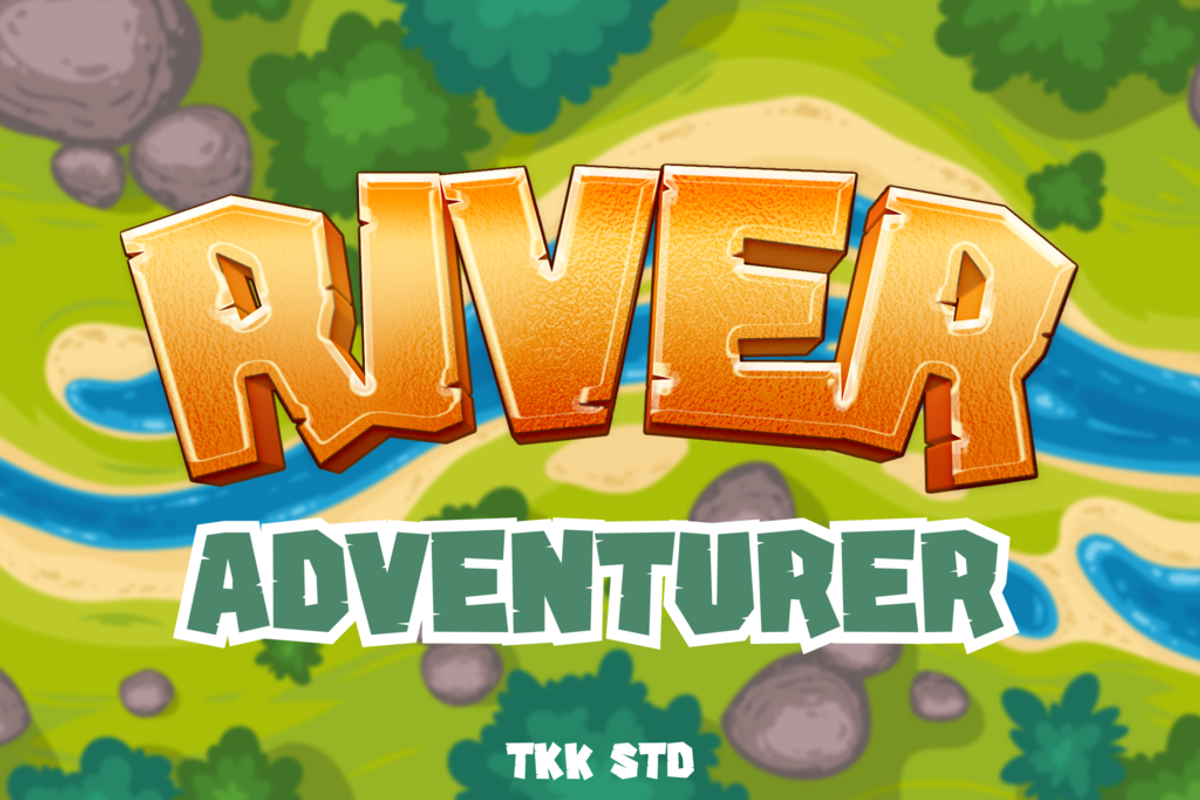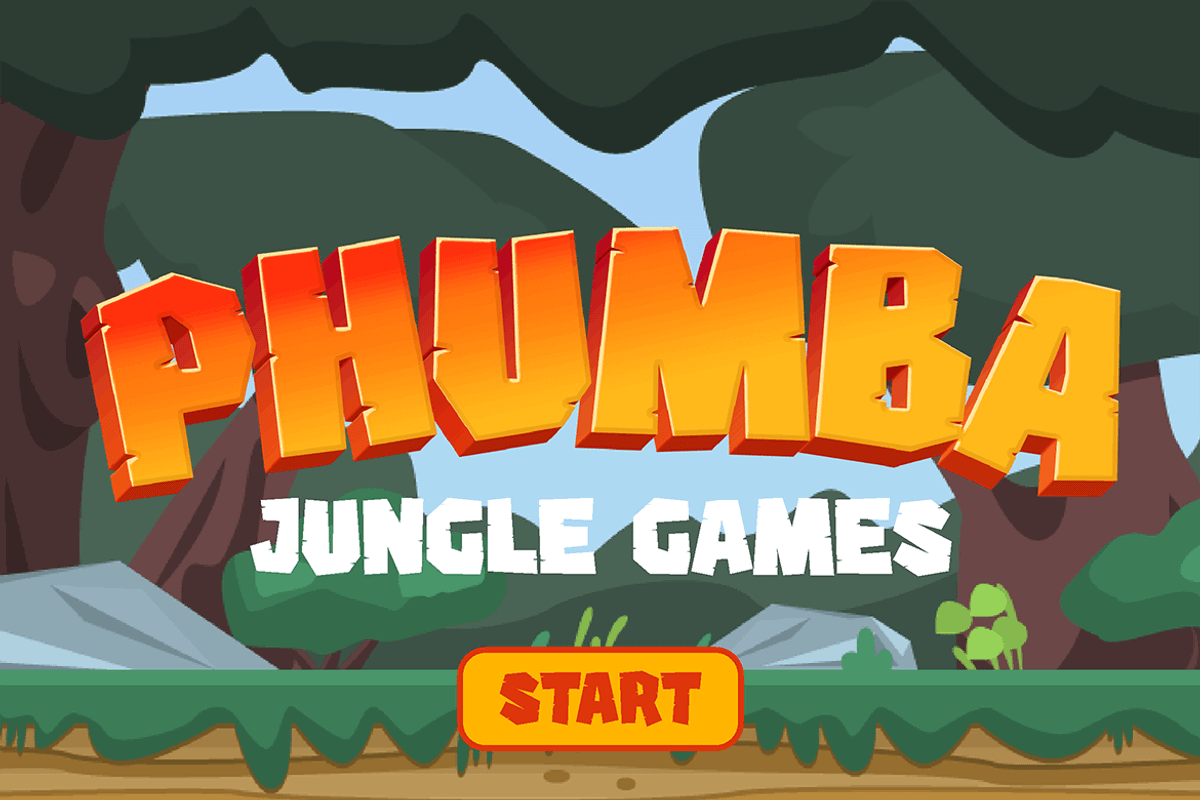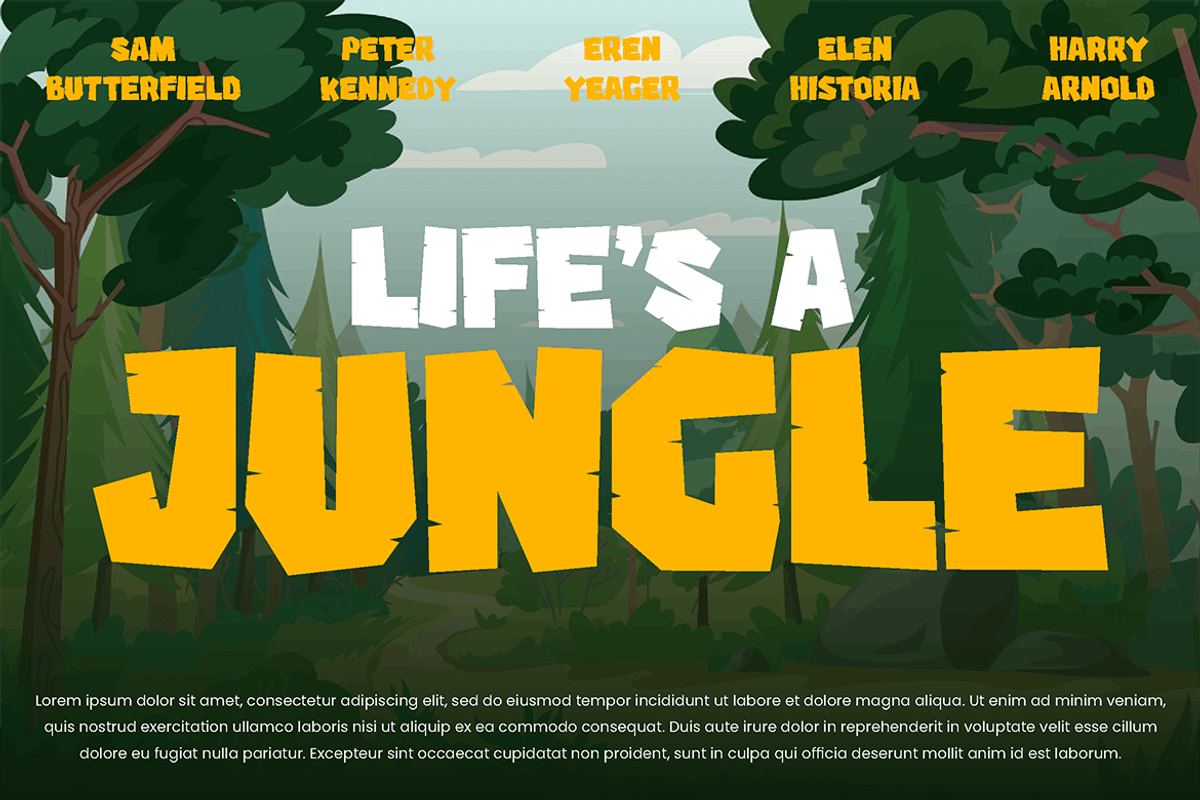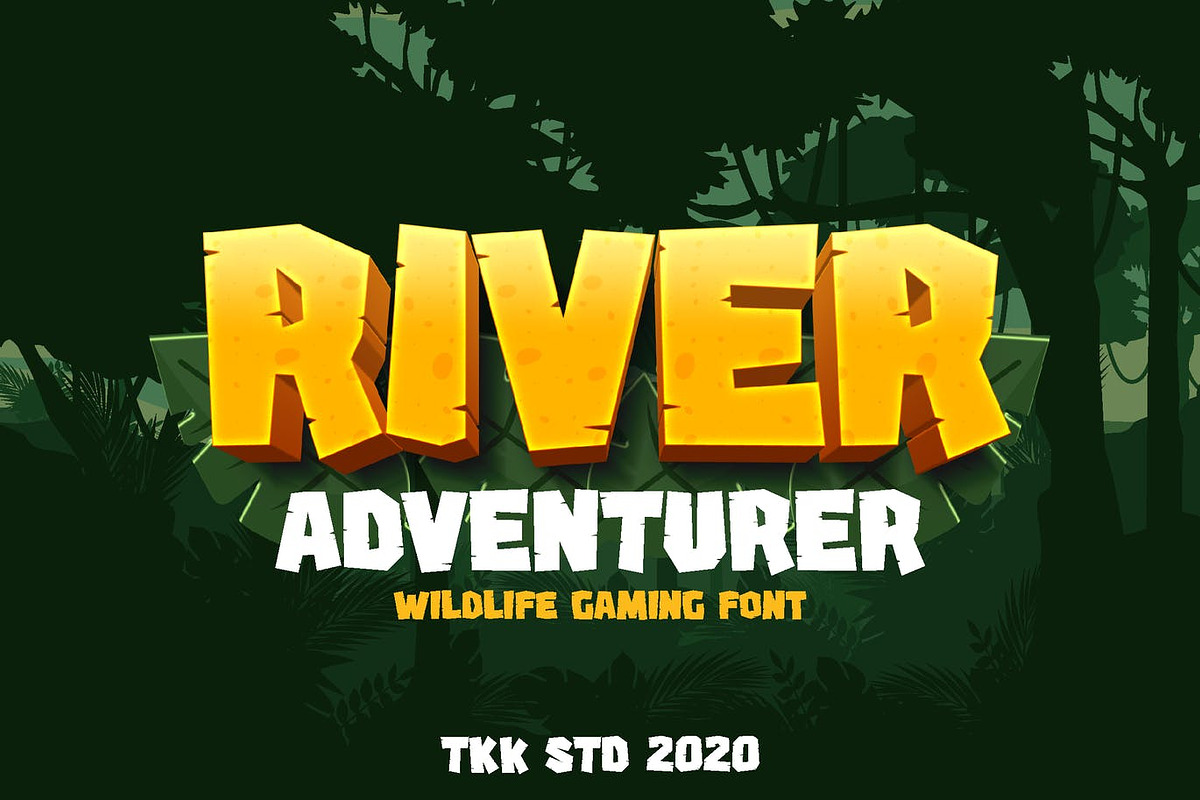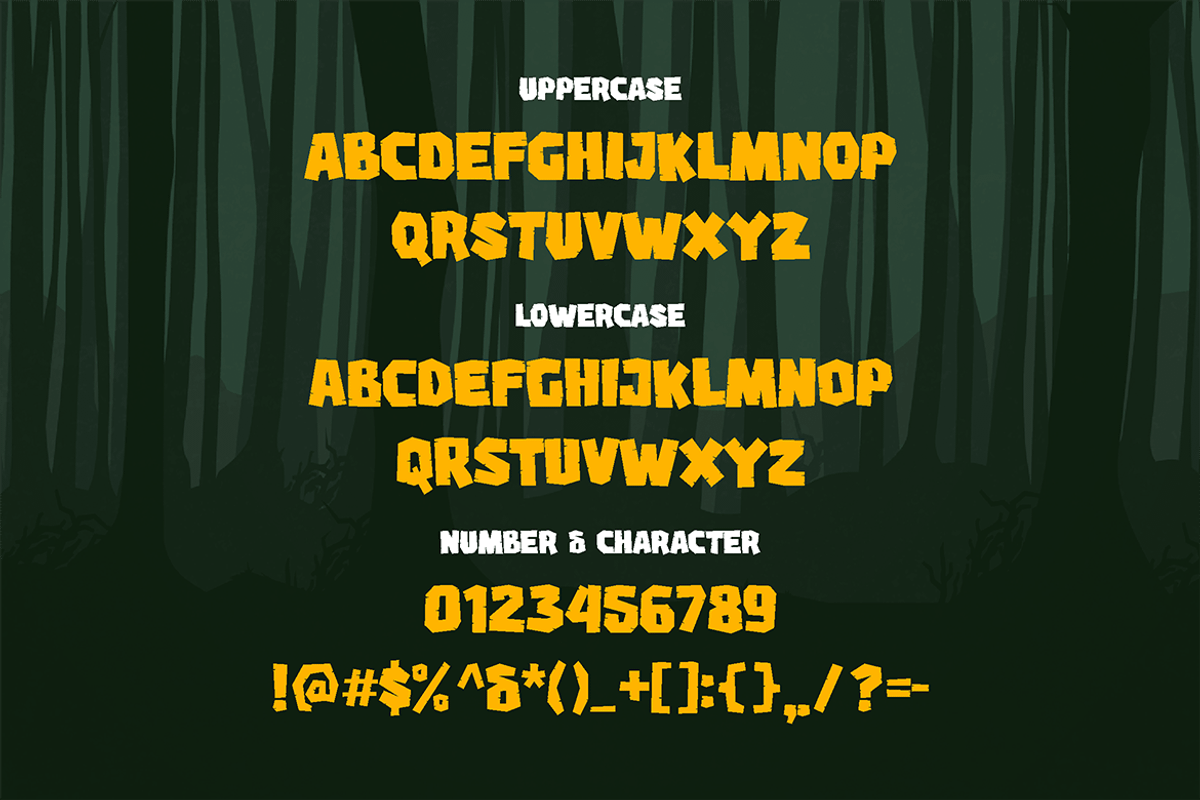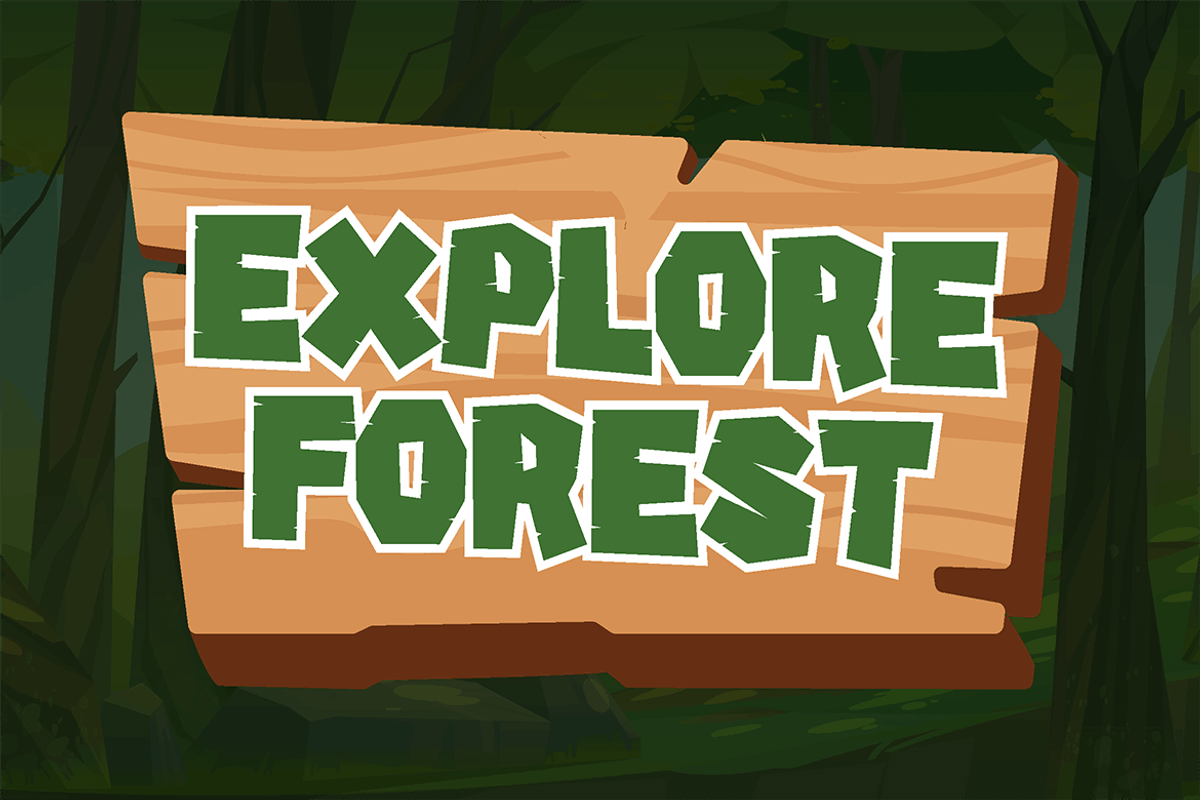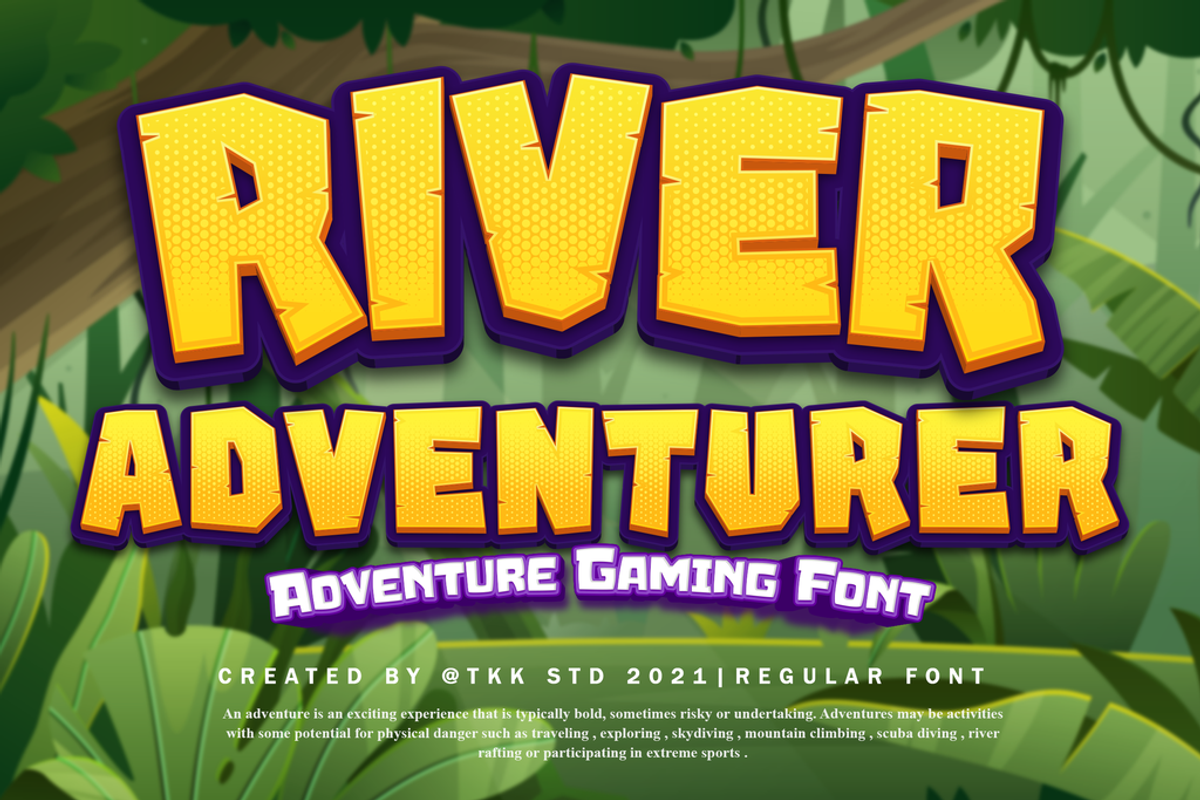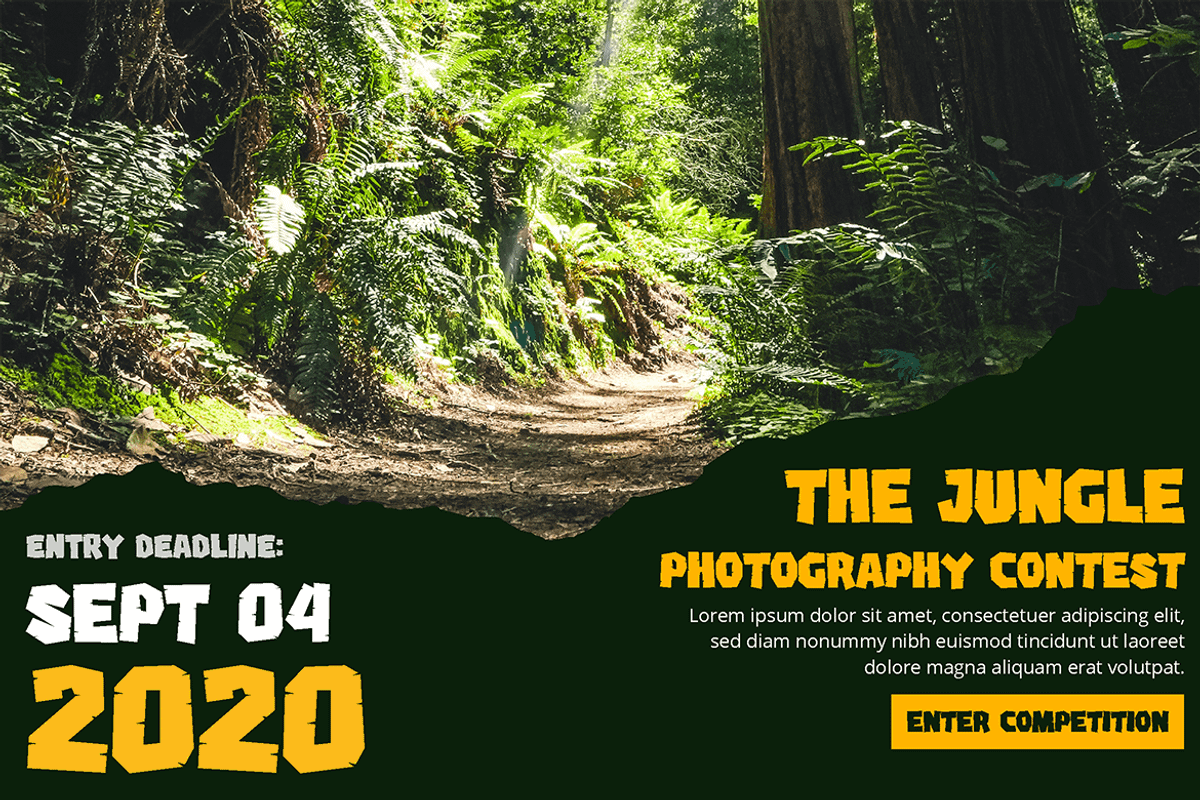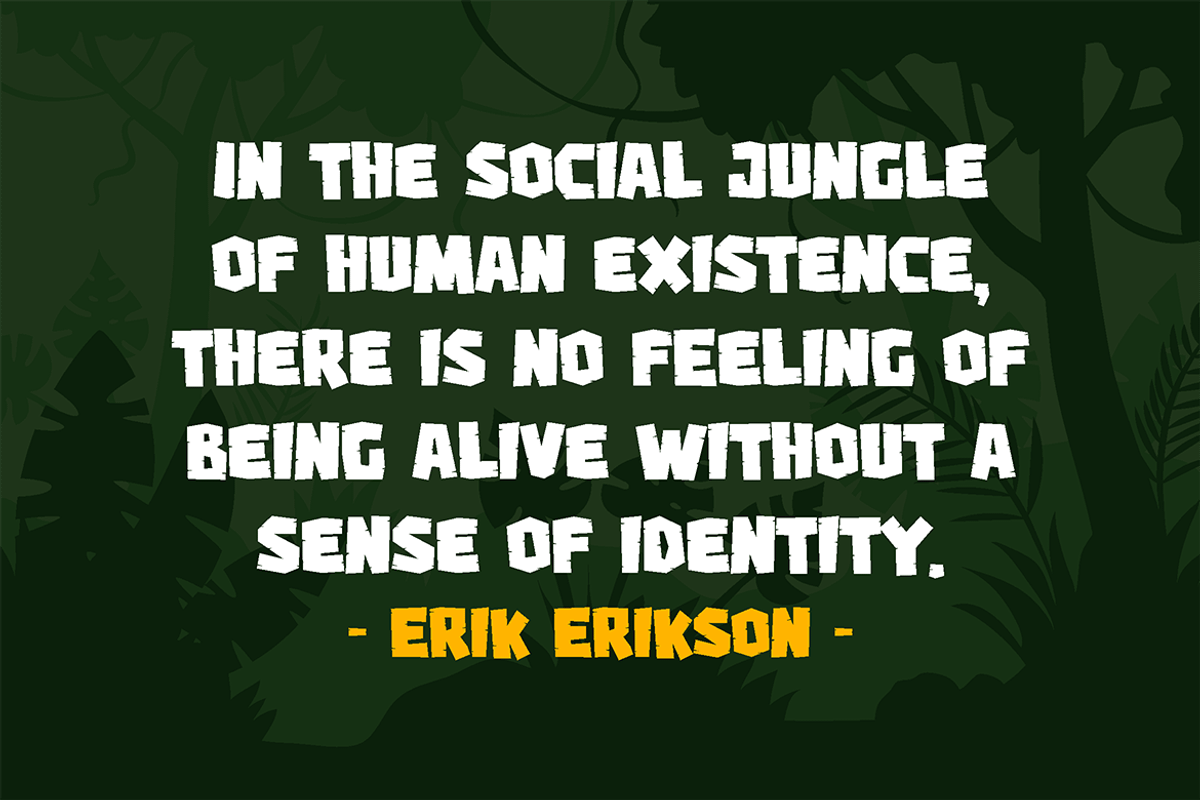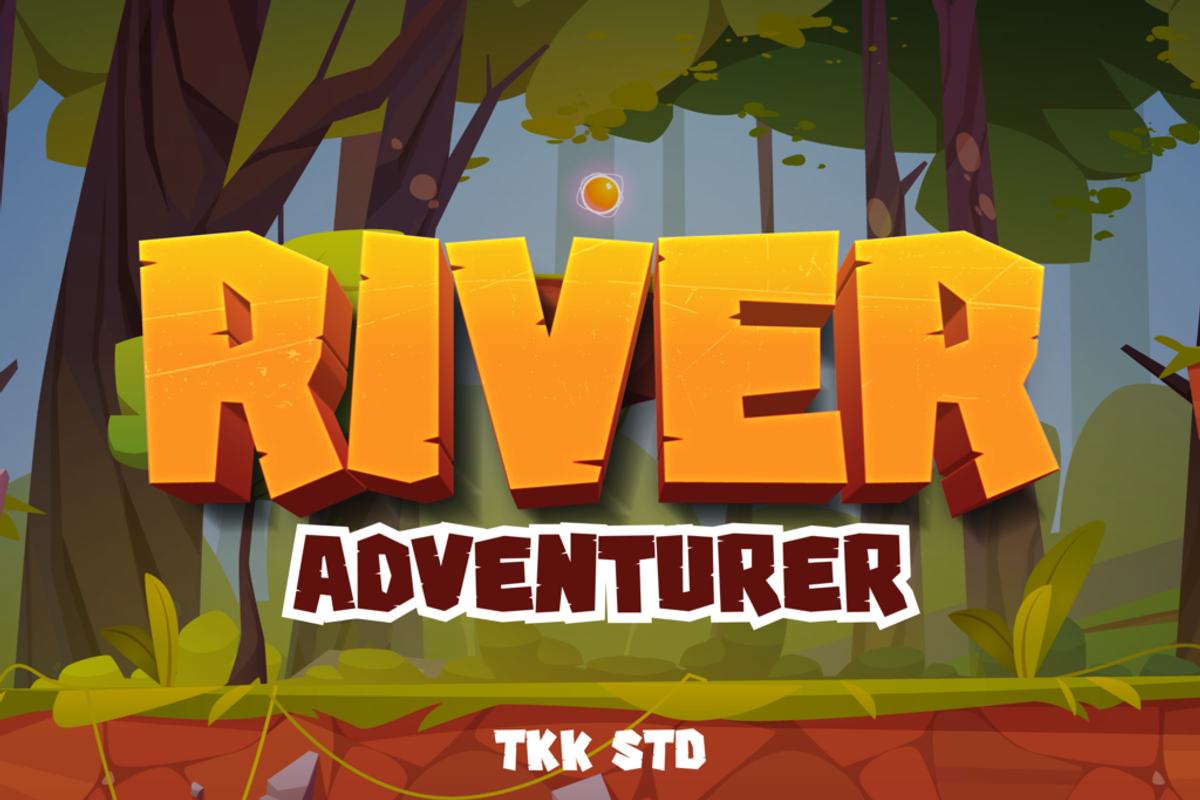
River Adventurer - Block Font
River Adventurer block font having a wildlife vibe and adventurous blocky sans serif font, with all caps shape. Looks like a rock boulder from the riverbank, given a rough cut, and shape into the alphabet.
The strong and stern feeling doesn’t take away the adventure and happiness surrounding the font.
Suit perfectly for and Adventure Online Games, poster, movie title, fast food menu, magazine, youtube covers, youtube thumbnails, social media page covers and so on…